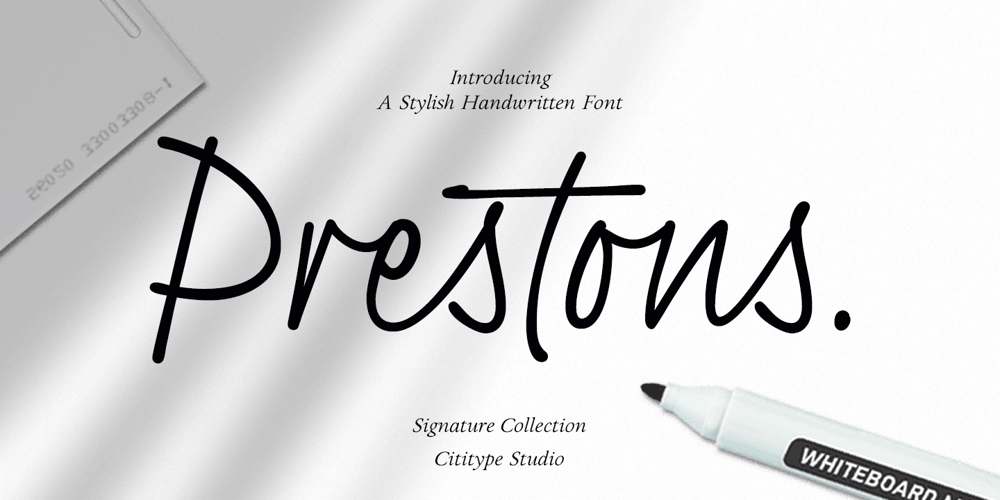
Preston Signature Font Family was designed by Muhammad Ridha Agusni, Siti Saribanon Nurjannah and published by Cititype. Preston Signature contains 1 styles and family package options. Prestons signature is made with a medium-sized marker pen with a casual groove. Feel the sensation of natural handwriting.This font is a great choice for digital signatures, brand names, logos, banners, headlines, wedding invitations, business cards, book titles, movies, podcast texts and craft work.we complement with alternate and ligature to strengthen the natural impression on your design